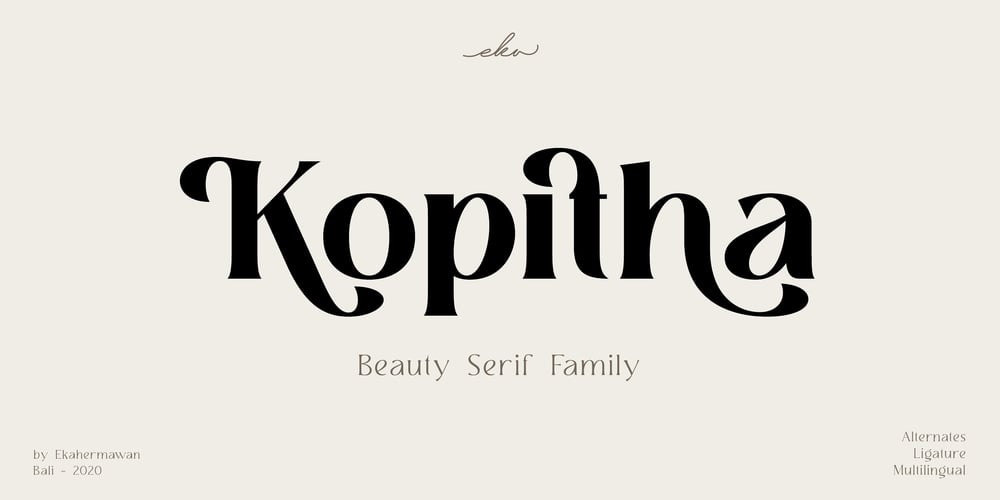
Kopitha Font Family was designed by Putu Eka Hermawan and published by Ekahermawan. Kopitha contains 5 styles and family package options. Kopitha is a beauty serif family with 5 weights from Light to ExtraBold.Kopitha also includes alternate characters (PUA Encoded) and ligatures to give you a wide range for create an unique typographic design results.Kopitha is suitable font for many different projects such as logo, branding, poster, magazines, label, merchandise, invitation, presentation, advertising, quotes and so much more!FEATURES: OpenType support Playfull to use (with ligatures and alternates options) Multilingual support PUA Encoded If you need support or more information about this itemplease kindly contact me :ekahermawanputu@gmail.comThank you so muchI really hope you enjoy when using it!